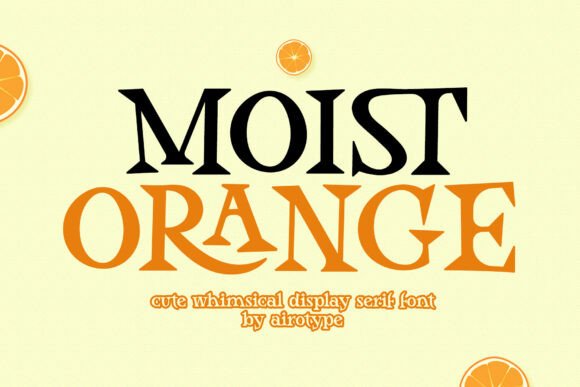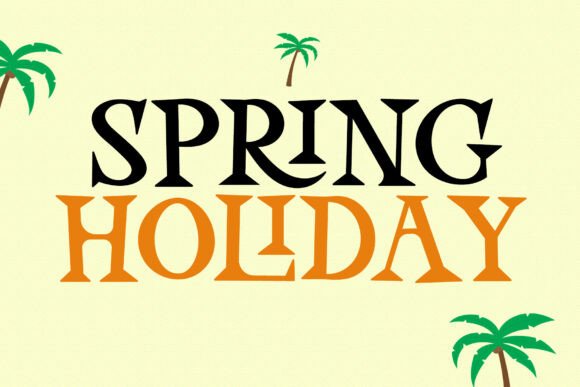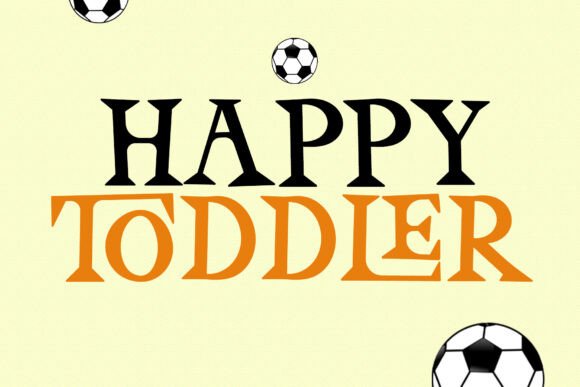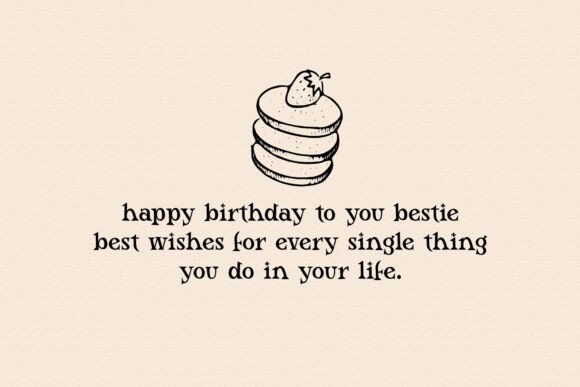
Moist Orange Font: A Cute Display Serif for Playful Logo Design
About the Moist Orange Font
Elevate your designs with Moist Orange Font, a font that combines sophistication with readability. Moist Orange is cute and charming serif font. This font radiates fun and happiness.
Moist Orange has few ligatures with cute style. Make sure your design software has ligature features.
Moist Orange is perfect choice font for design with cute theme, such as t-shirt, logo, display, crafting, sticker, quotes, tumbler, and many more.
Its playful, rounded serifs make Moist Orange ideal for headlines, logos, short-form text in packaging, and social media graphics. The charming nature lends itself well to projects targeting younger demographics or those with a lighthearted brand identity. Avoid using it for large blocks of body text or UI elements where readability is paramount; its decorative qualities compromise legibility in extended use.
Pairing Moist Orange with a clean sans-serif like Open Sans or Lato provides excellent contrast and balance, allowing the playful serif to stand out. For a more whimsical feel, consider pairing it with a script font such as Great Vibes, but use it sparingly to avoid visual overload. A geometric sans-serif like Futura would offer a modern counterpoint.
Moist Orange’s overall personality is undeniably cheerful and friendly, making it a strong choice for brands focusing on fun, creativity, and approachability.